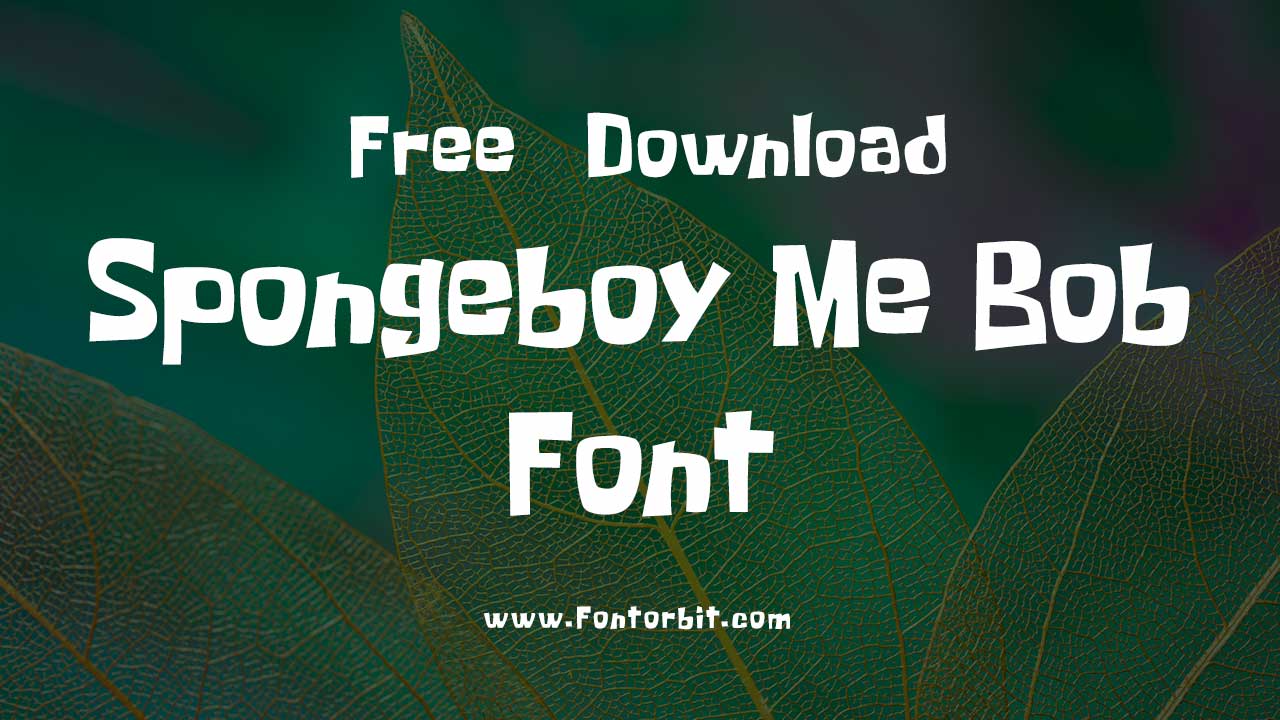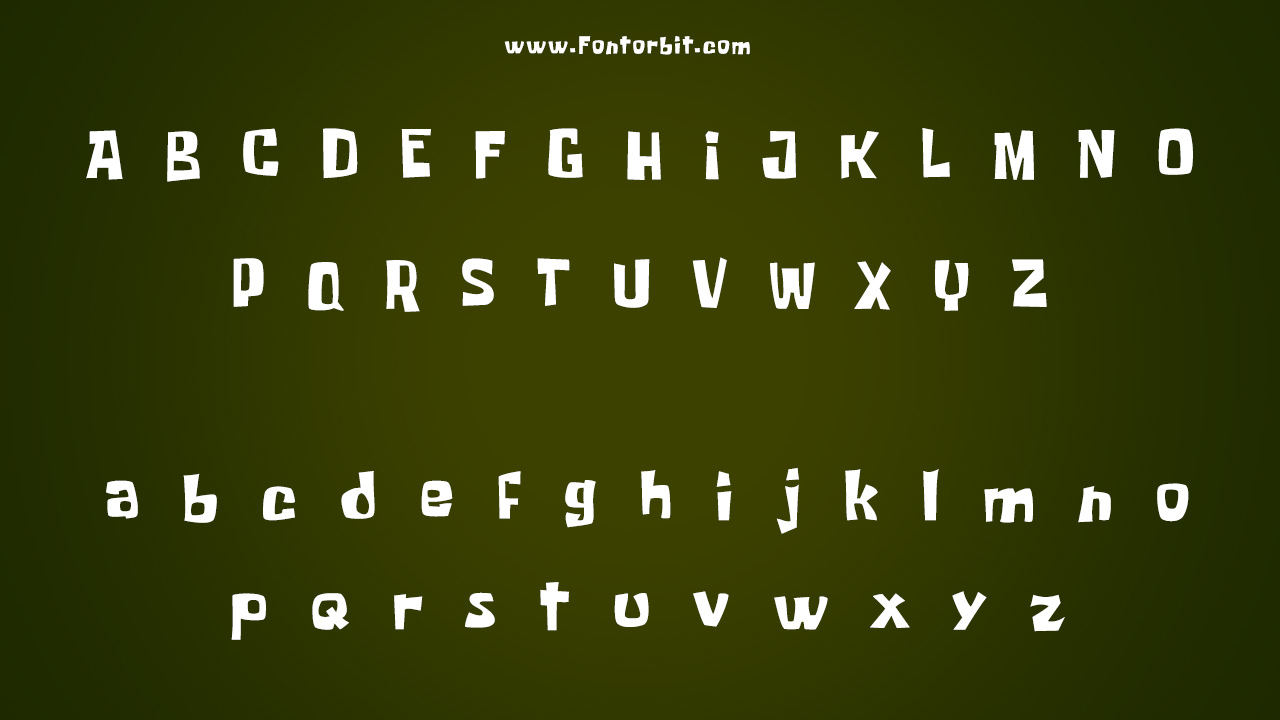
Spongeboy Me Bob Font is a unique and fancy typeface designed by Eye of The Lioness. Inspired by the popular SpongeBob animated series, this font captures the whimsical and playful essence of the show.
The first season of SpongeBob was released in 1999, and the font, which came out in April 2016, reflects the show’s enduring popularity. With 94 characters, including lowercase letters and special symbols, the font supports various international languages, making it versatile for various design projects.
Type Of The Spongeboy Me Bob Font
The Spongeboy Me Bob Font belongs to the Fancy typeface category. It is known for its quirky, fun style, which is ideal for creative projects requiring a bold, cartoonish feel.
a. Spongeboy-Me Bob Regular
The Spongeboy Me Bob Font Found In Use
This font is perfect for modern designs, including tattoos, printing jobs, and official logos. It enhances creative thumbnail designs for social media and YouTube channels, as well as posters, advertisements, and PowerPoint presentations. It’s also ideal for premium cards like gift and business cards.
- Book covers
- Article designs
- Hotel poster names
- Website titles
2.Is The Spongeboy Me Bob Font Elegant?
Yes, it is considered a fancy typeface with a contemporary and distinctive design, similar to other cartoon fonts like Tiki Tropic Font.
4.What Are The Best Practices For Using The Spongeboy Me Bob Font?
Use it for playful projects like children’s books, stickers, and memes. Ensure the background contrasts well to highlight the font style. Check copyright for commercial use.
6.What Are The Best Pairings For The Spongeboy Me Bob Font In Typography?
Pair with similar free fonts or modern fonts. Cursive and Western fonts complement well. Avoid fancy or formal fonts to keep the playful vibe.